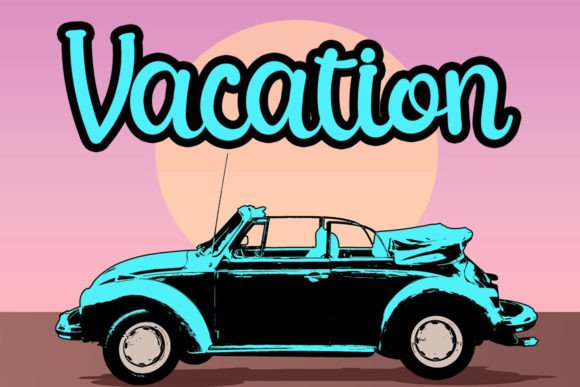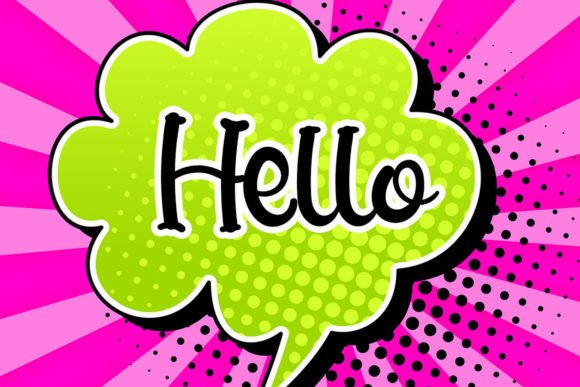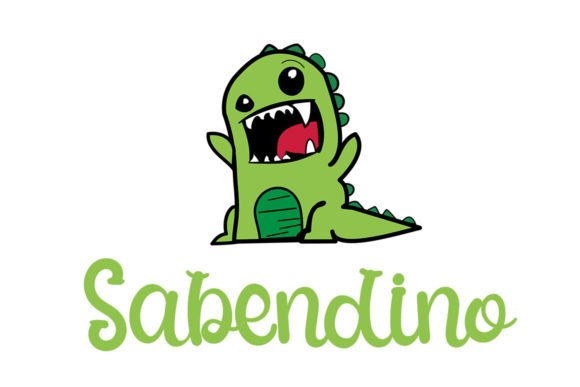
Introduction to Simple Fonty Font
Introducing a delightful and chic font that exudes a fresh, pristine, and refined appeal.
It’s meticulously crafted to artistically enhance a wide variety of projects, from the sophisticatedly formal to casually informal This font has the power to breathe an effortlessly joyful vibe into your creations, providing that extra sparkle in the eyes of your audience.
Simple Fonty Font offers exceptional quality and versatility, making it a valuable addition to your design toolkit. Whether you’re creating for personal projects or commercial use, Simple Fonty Font delivers professional results.